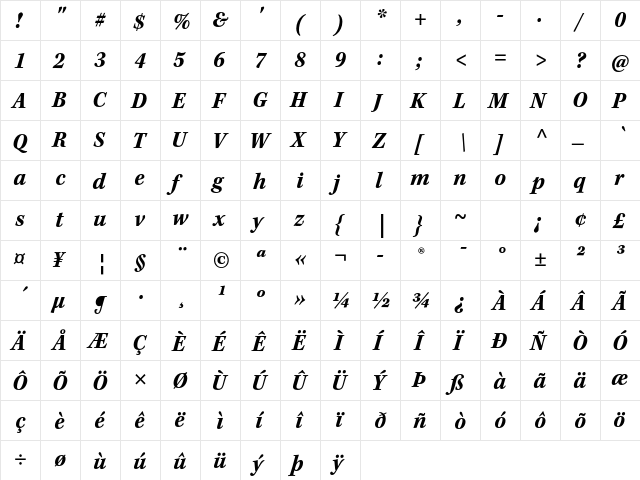
Kepler Std Bold Semicondensed Italic Caption Font Preview
| Designer | Robert Slimbach |
Design Context for Kepler Std Typeface
Kepler Std takes a measured approach to typography — its balanced proportions and neutral character make it a reliable workhorse for both digital and print work. The dynamic lean of this cut emphasises speed and emphasis in any layout. Its bold stroke weight gives it real presence on the page. Its narrow stance lets it pack a punch even in space-constrained designs.
Pro Tip: Use Kepler Std for emphasis, pull quotes, and subheadings where its slanted energy can add rhythm to the layout.